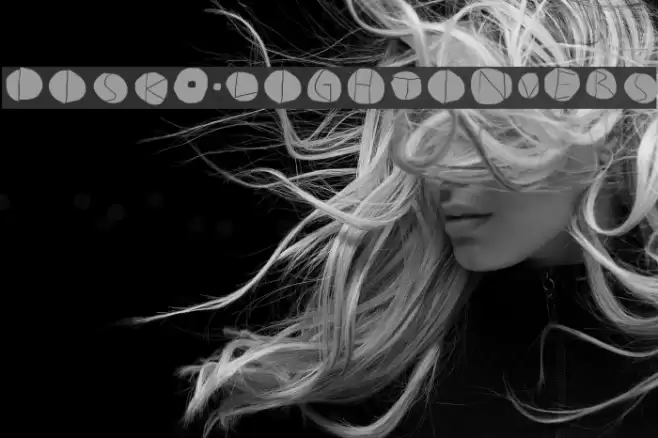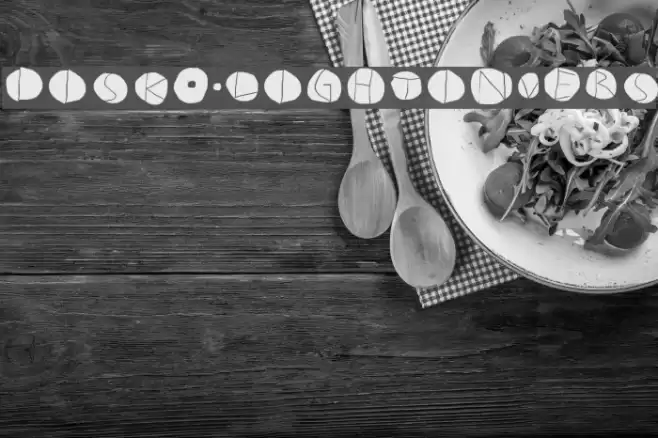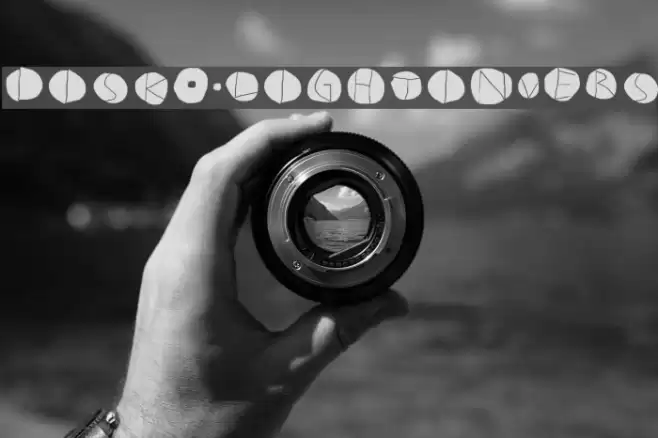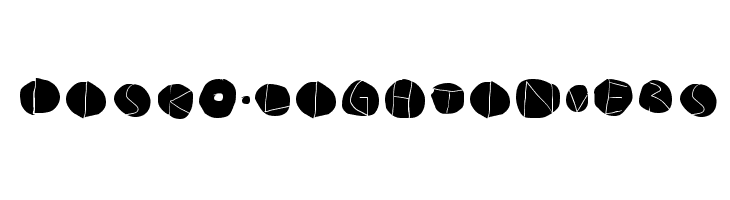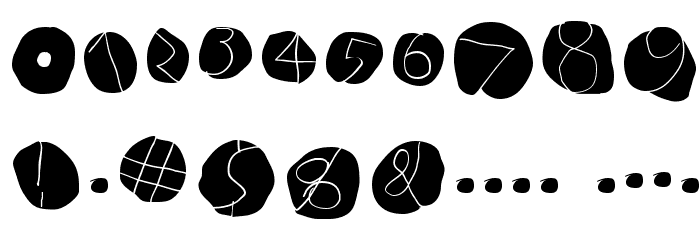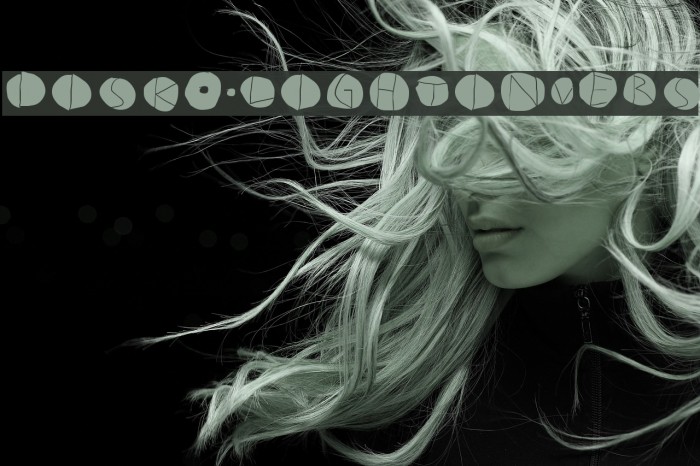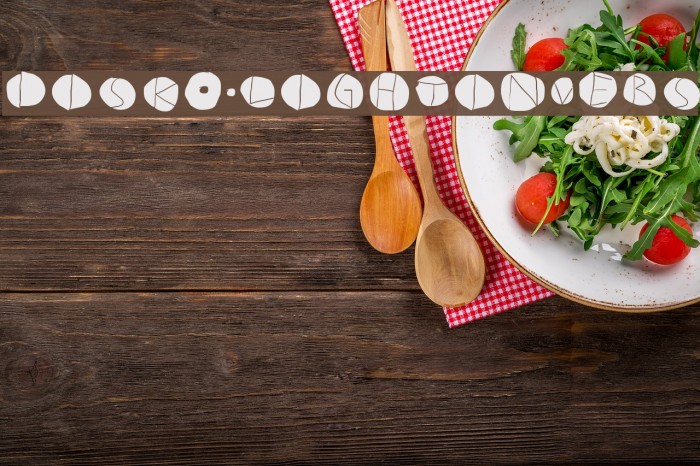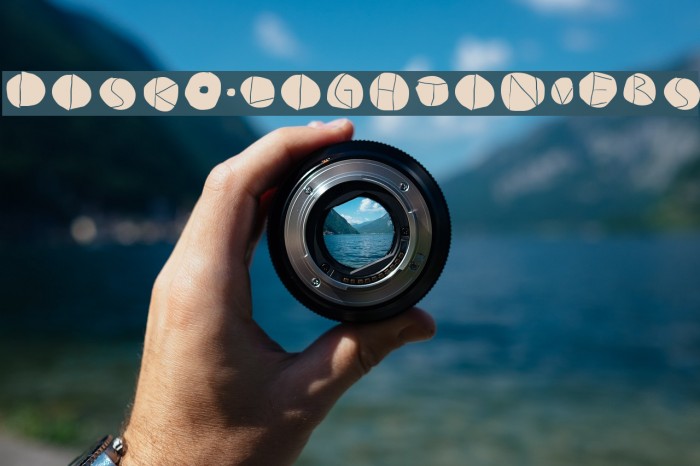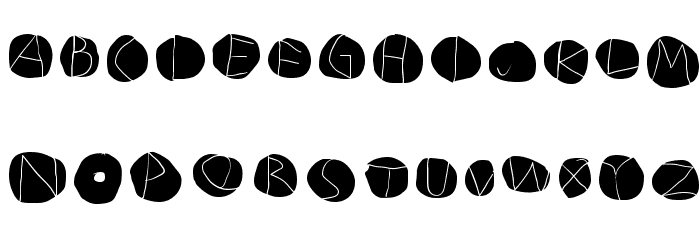
DiskO-LightInvers Font
DiskO-LightInvers Description
This font features a unique and playful design with each character enclosed in a circular shape, creating a striking contrast between the bold black background and the thin white lines forming the letters and numbers. The style is reminiscent of abstract art, with each letter appearing as a distinct piece within its circular boundary. The font maintains a consistent circular form across all characters, giving it a cohesive and uniform appearance. The thin lines used for the characters add a delicate touch, while the bold circles provide a strong visual impact. This font is ideal for projects that require a creative and unconventional look, making it suitable for artistic and modern designs.
A playful, circular font with thin white lines on bold black backgrounds from Uncategorized fonts.
- Proposed Projects: Ideal for artistic posters, modern branding, album covers, and creative digital media.
- Use Case: Logos, Headlines, Artistic projects